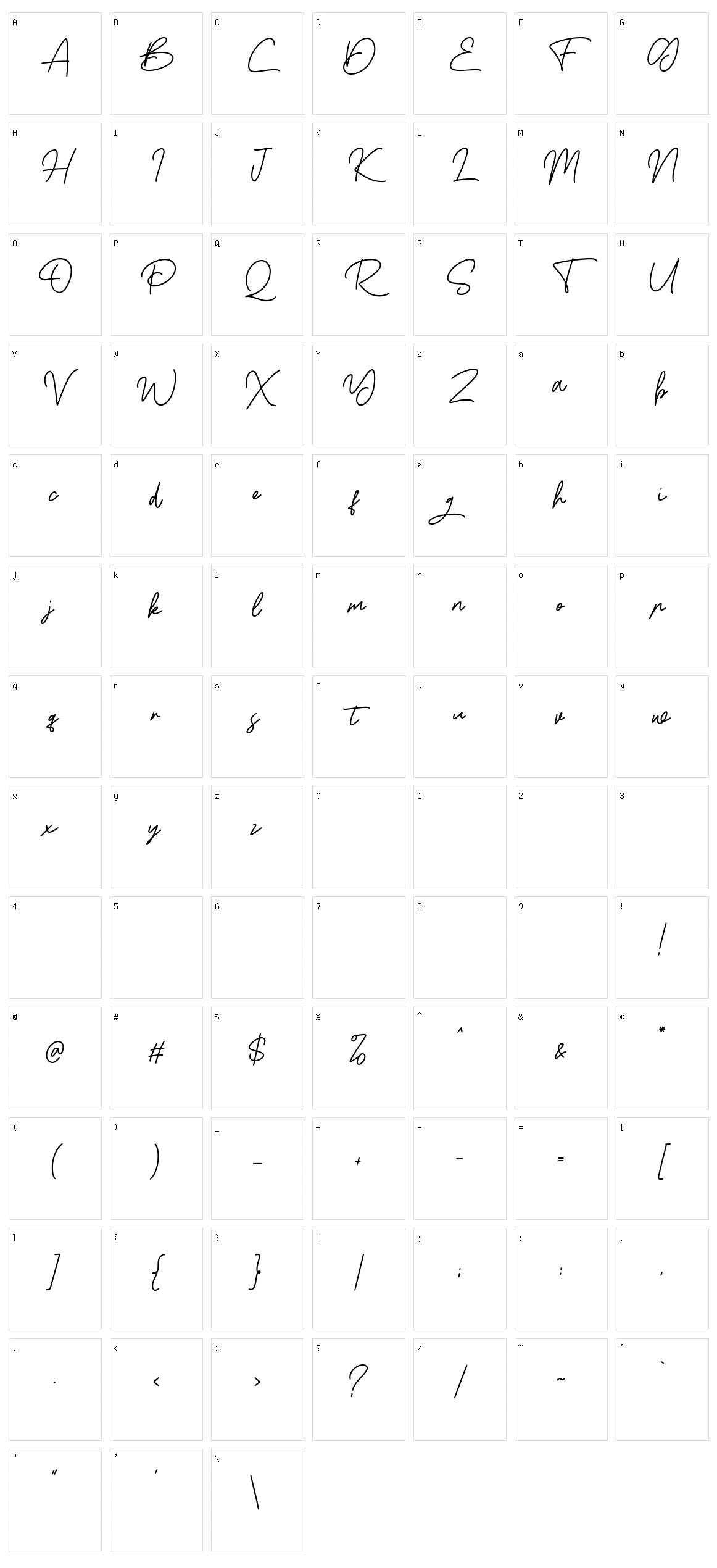
Boss Signature
Designed by: Sarah Robbaniyyah
Description: The free font Boss Signature is carefully designed by Sarah Robbaniyyah, showcasing a thoughtful balance of creativity and usability and falls under the Script font style. When you download the ZIP file, it contains only 67.44 KB of font files, making it lightweight and quick to download. Please review the license details below to understand permitted usage and distribution rights. If license information is not available, we recommend using this font for personal projects only or contacting the author directly for commercial usage permissions.